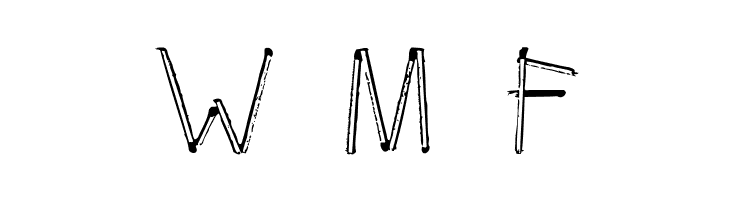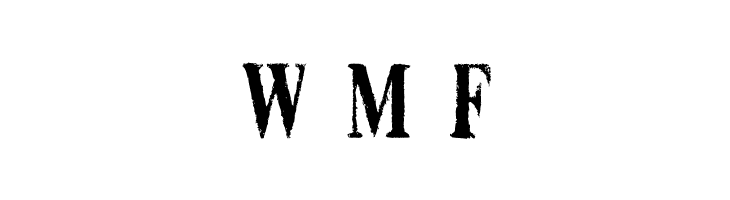
Odyssey Font
A playful, retro-inspired font with tall, narrow characters and rounded edges.
Whimsy TT Font
A playful, bold font with irregular shapes and a lively, cartoonish style.
KLCupid Font
A charming cursive font with smooth, flowing lines and whimsical special characters.
Bifur Foundation Font
A bold, geometric font with a modern and abstract design.
Market Saturday Font
A playful, casual handwritten font with dynamic strokes and a lively feel.
Tajawal Font
A modern, clean sans-serif font with balanced proportions and excellent readability.
baby dont worry bout it! Font
A bold, playful handwritten font with thick, rounded strokes.
3D by Marta van Eck Font
A bold, 3D vintage-style font with a strong shadow effect.
Beacon Font
A bold, gothic-style font with sharp, angular lines and intricate details.
Tajawal ExtraBold Font
A modern, extra bold sans-serif font with clean lines and strong presence.
BoutiqueDisplayCaps Font
A bold, decorative font with vintage, ornate detailing and high contrast.
Tajawal-Bold Font
A bold, modern sans-serif font with excellent readability.
Tajawal-Medium Font
A modern, geometric sans-serif font with balanced proportions and clear readability.
Boutique Font
A bold, textured font with a vintage, handcrafted appearance.
Tajawal Black Font